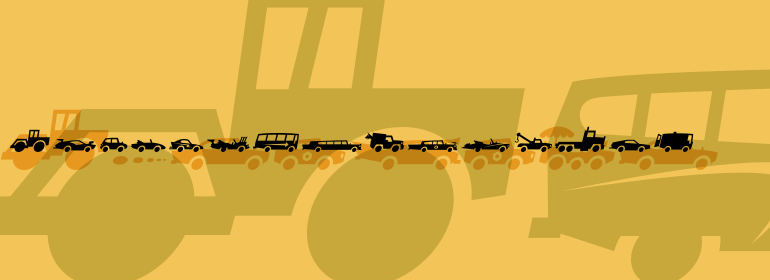
Autofont
Font Family by Device
Autofont is a dingbat font from Device with a compact, single-style setup and a playful, symbol-driven character. Rather than reading as traditional text, it brings a graphic, icon-like feel to the page, making it a useful choice when you want decorative marks and visual accents to do the talking.
With 1 font style in the family, this design is well suited to projects that benefit from bold visual shorthand, including posters, packaging, branding details, social graphics, and other display-focused work. If you’re building layouts that need distinctive ornaments or graphic punctuation, this font offers a simple way to add personality without overcomplicating the design.